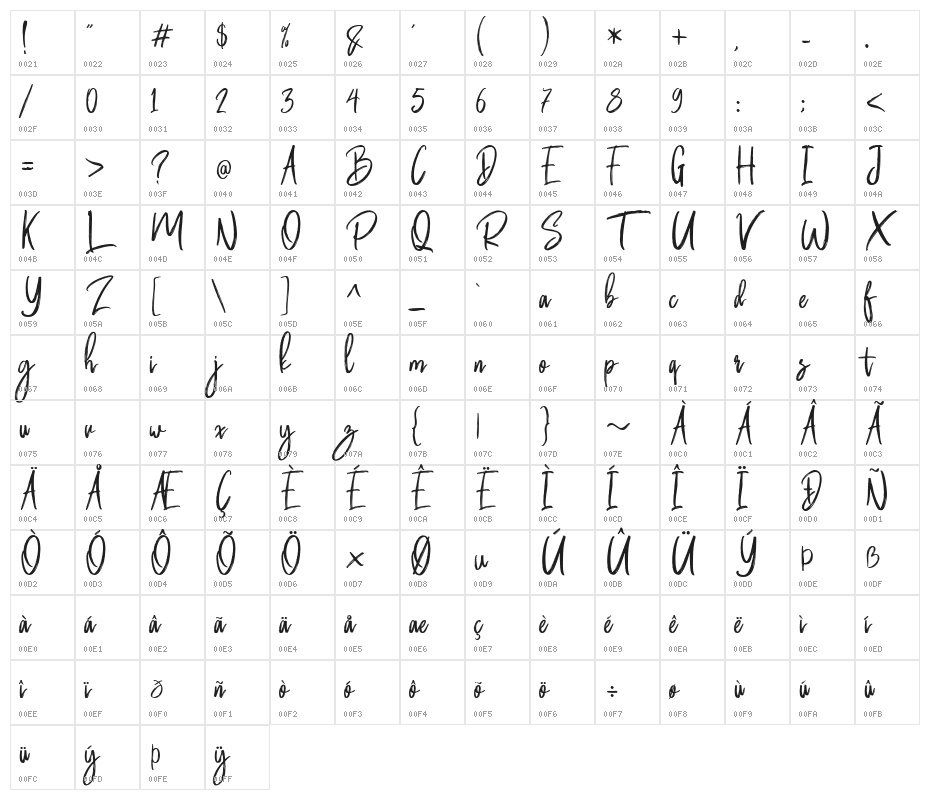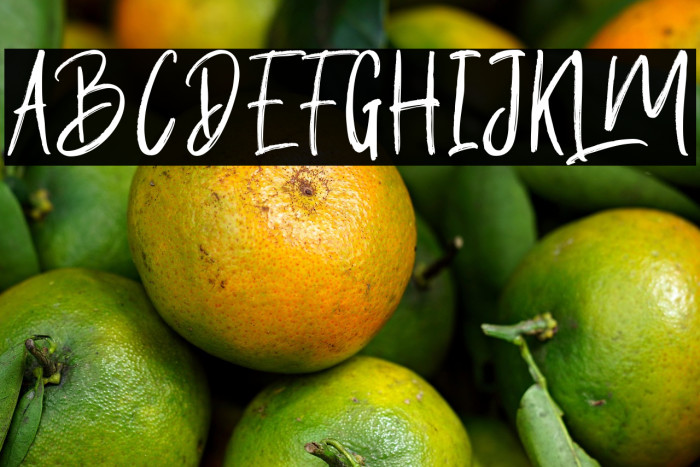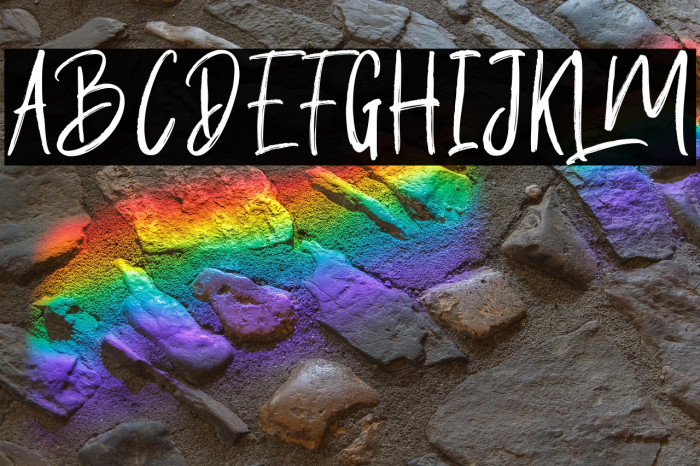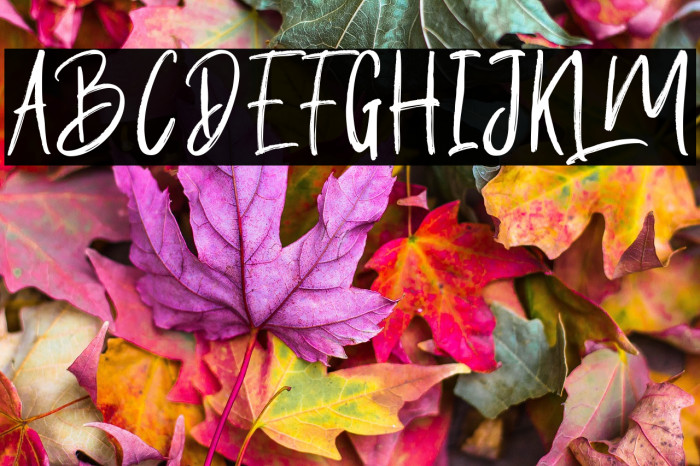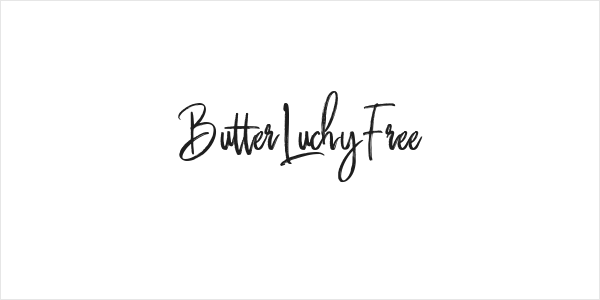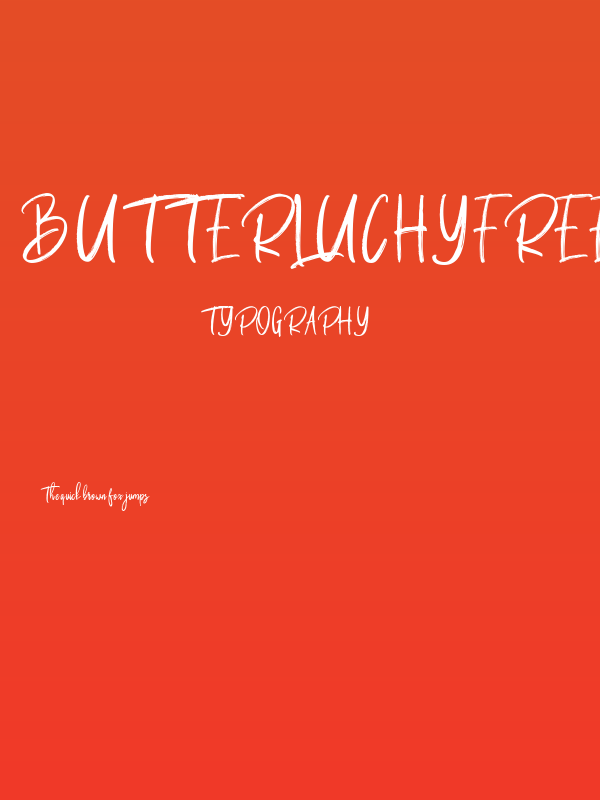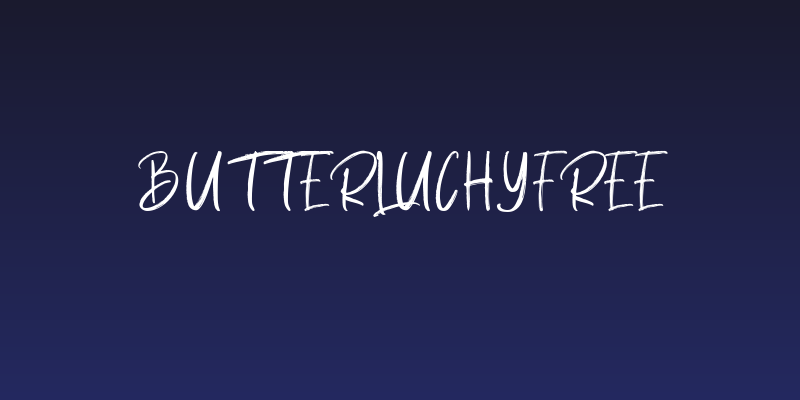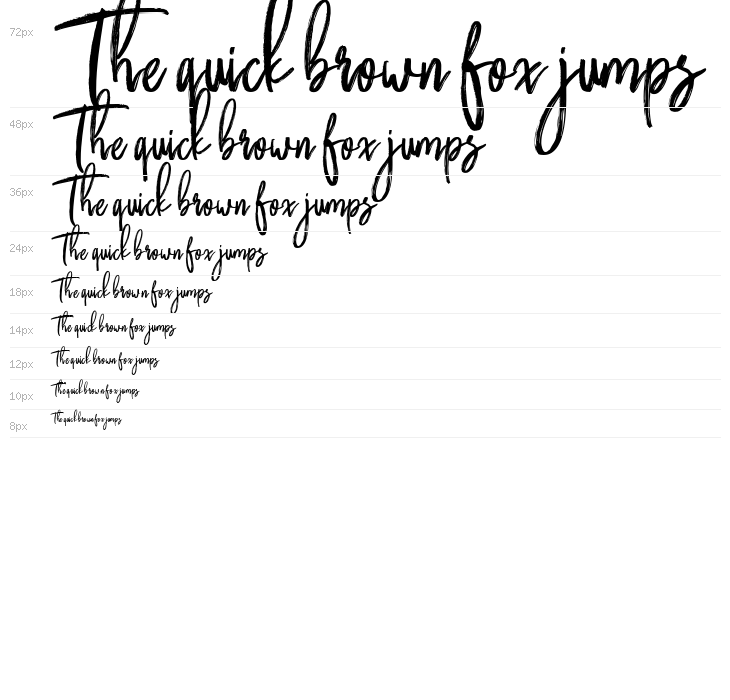
ButterLuchyFree Font
ButterLuchyFree Description
This font exudes a playful and energetic vibe with its handwritten style. The letters are characterized by their fluid, cursive strokes that vary in thickness, giving it a dynamic and lively appearance. The uppercase letters are bold and slightly slanted, while the lowercase letters maintain a consistent flow with a more pronounced slant. The numbers are equally expressive, maintaining the same handwritten charm. Special characters are creatively integrated, adding to the font's overall artistic flair. This font is perfect for projects that require a personal touch, such as invitations, greeting cards, or creative branding.
Use CaseLogos, Headlines, Artistic projects
Proposed ProjectsIdeal for invitations, greeting cards, creative branding, and artistic projects.